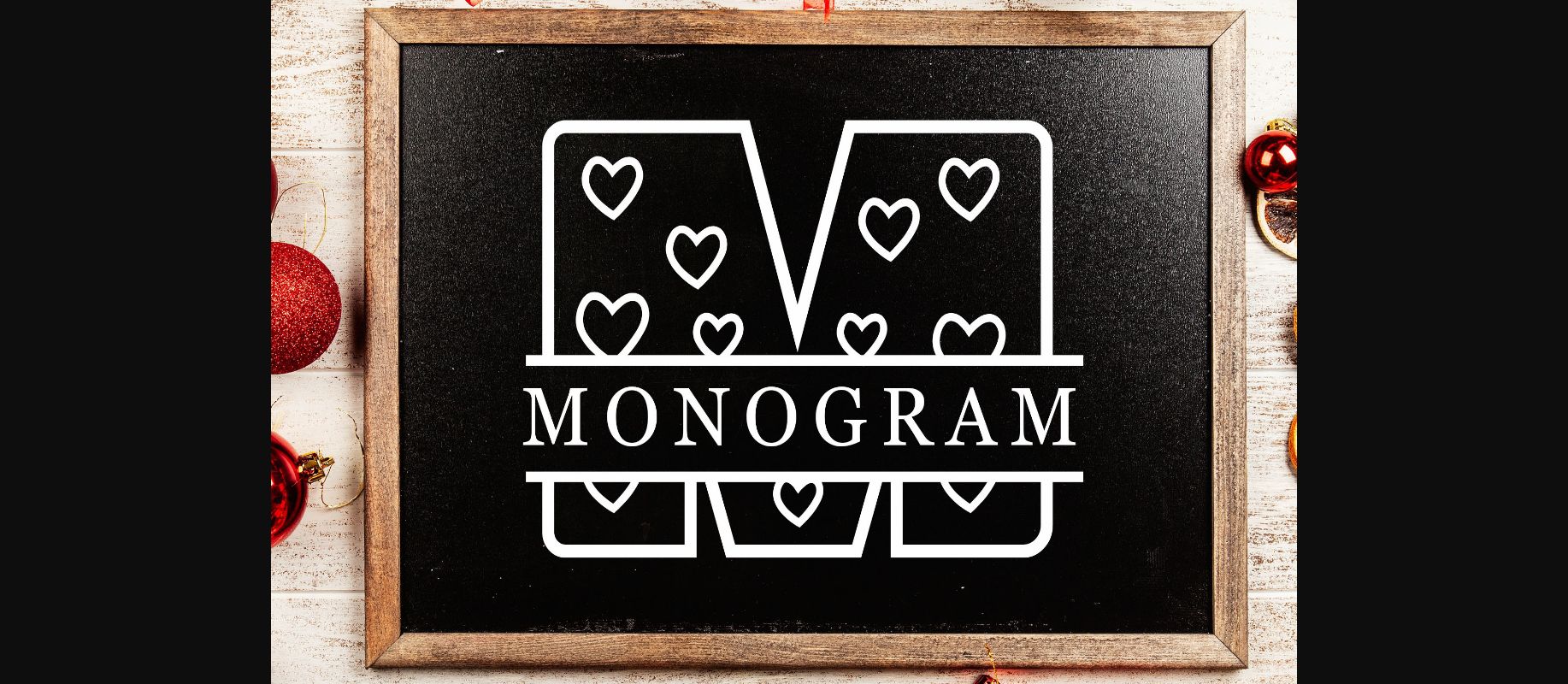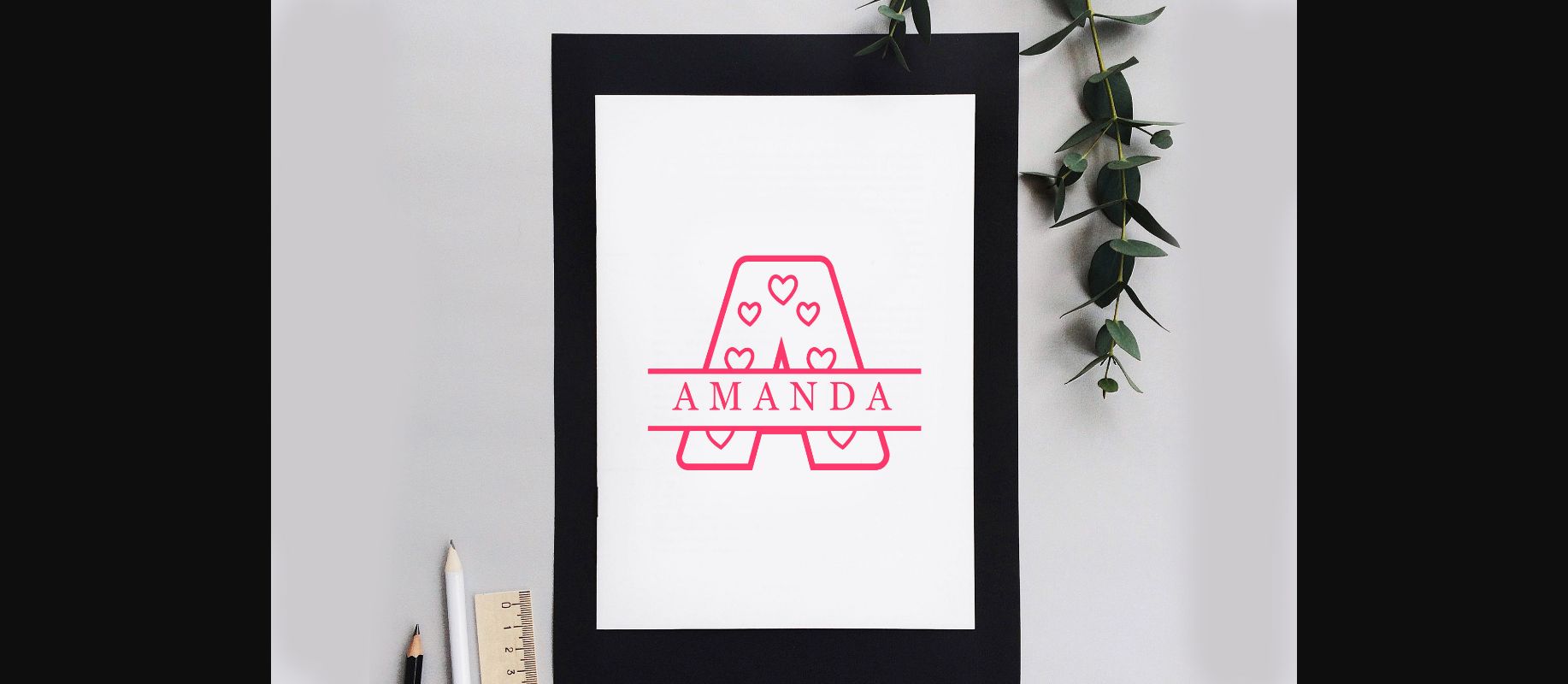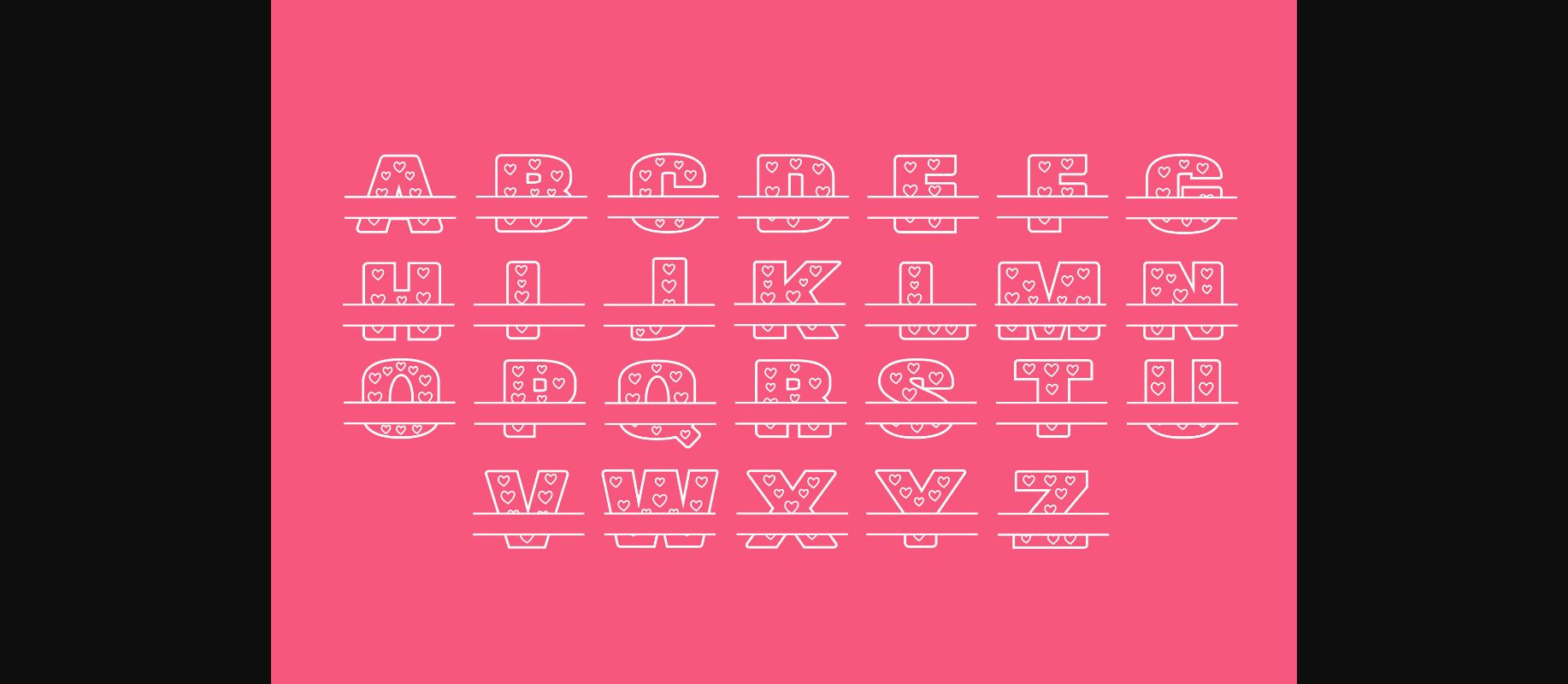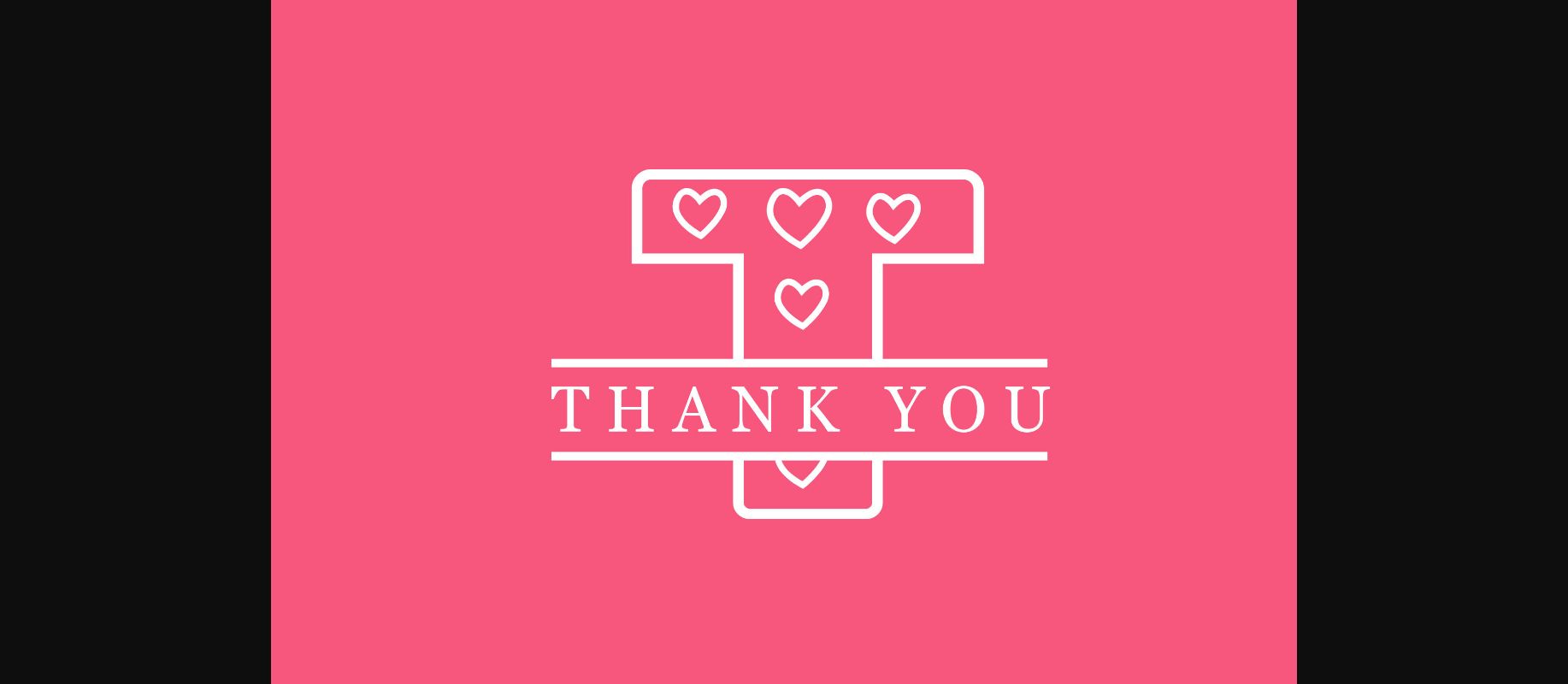
HomeDecorative FontsMonogram Font Decorative Fonts Monogram Font FacebookXPinterestWhatsApp 1 of 6 ... Monogram Font Poster 2... Monogram Font Poster 3... Monogram Font Poster 4... Monogram Font Poster 5... Monogram Font Poster 6... About Monogram Font Monogram is a fun, cheery and romantic decorative font. It is perfectly suitable for any Valentine’s Day related project or crafty idea! The only limit is your imagination. DOWNLOAD NOW People also explored Browallia Font Sketchbook Paper View Blessed Font Vacation Font Brilliant Signature Font Chic Cat Font Birthday Valentine Font The Fourth Avenue Rockers Font 294 0 TagsMonogram Font Previous articleEthic Art FontNext articleBird Beauty Monogram Font LEAVE A REPLY Cancel reply Comment: Please enter your comment! Name:* Please enter your name here Email:* You have entered an incorrect email address! Please enter your email address here Website: Save my name, email, and website in this browser for the next time I comment. Personal Use Free Splatter Splash Personal Use Free Read more about this font Vexler Slip Personal Use Free Read more about this font Beat My Guest Personal Use Free Read more about this font Rare Knuckle Personal Use Free Read more about this font BLOG Fonts That Capture the Spirit of New York City New York City is more than just a place—it’s an experience, a rhythm, a visual language... Best Fonts for T-Shirt Design – Top 2025 Picks The 10 Best Handwriting Fonts to Add Personality to Your Designs Using Fonts in Digital Marketing: Tips to Strengthen Your Brand Identity